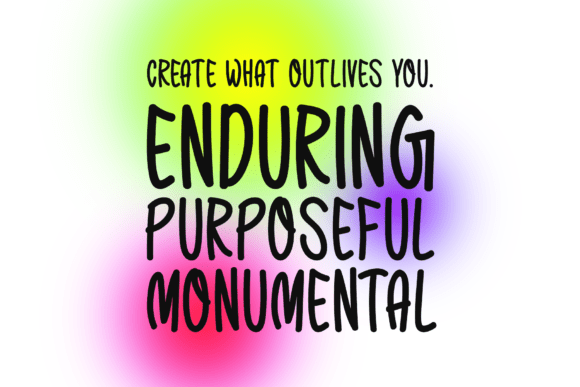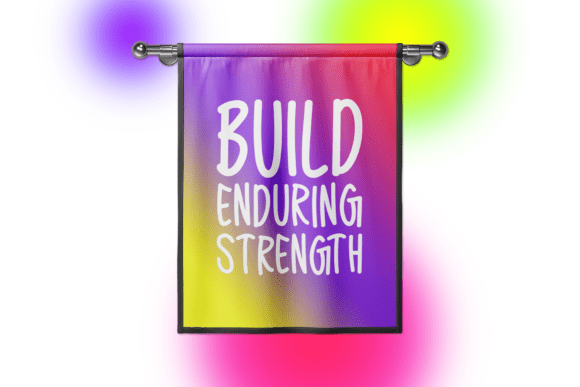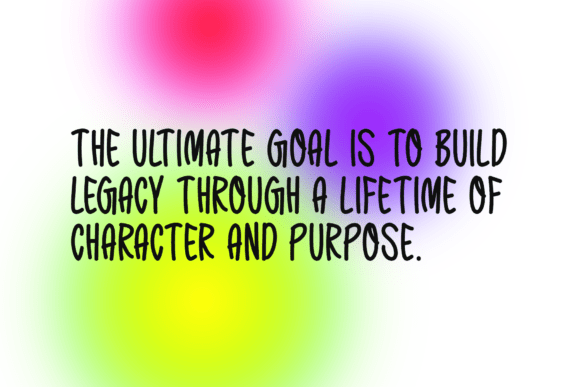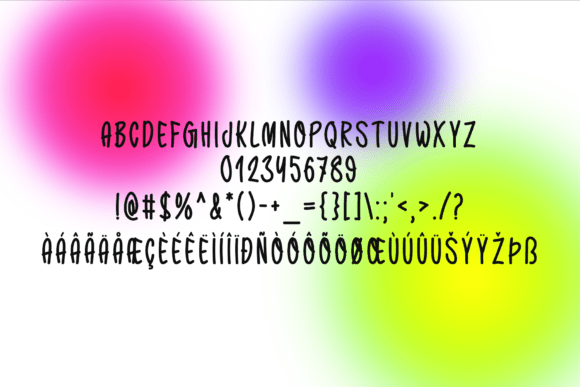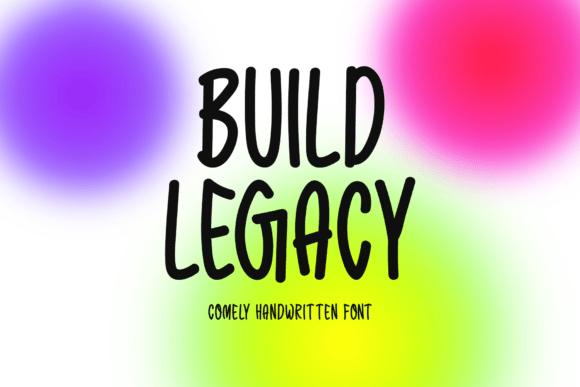
Introducing Build Legacy Font: The Ultimate Sans-Serif Display Font for Modern Designers
In the world of typography, a good font can make all the difference in creating stunning visual designs. For designers and crafters looking for a modern, sleek, and versatile font, Build Legacy font is an excellent choice. This condensed sans-serif display font is perfect for headlines, posters, logos, and branding where a bold yet compact look is needed.
What Makes Build Legacy Font Stand Out?
Build Legacy font features tall, narrow letterforms with consistent stroke widths, giving it a unique and stylish appearance. The clean sans-serif style makes it highly versatile and suitable for various design projects. Whether you’re working on a logo, poster, or branding material, this font is sure to make a statement.
One of the key benefits of Build Legacy font is its ability to convey a sense of modernity and sophistication. The font’s sleek design and consistent stroke widths give it a professional look that’s perfect for businesses and individuals looking to create a strong visual identity.
Key Features of Build Legacy Font
- Condensed sans-serif display font: Build Legacy font is designed to make a statement with its tall, narrow letterforms and clean sans-serif style.
- Modern, sleek, and slightly retro vibe: The font’s unique design gives it a stylish and sophisticated appearance that’s perfect for modern designs.
- Versatile for various design projects: Build Legacy font is suitable for headlines, posters, logos, and branding where a bold yet compact look is needed.
- Includes numbers, punctuation, and multilingual characters: The font’s extensive character set makes it perfect for professional and creative design projects.
The Benefits of Using Build Legacy Font
Build Legacy font offers several benefits for designers and crafters. Its clean sans-serif style and consistent stroke widths make it easy to read and visually appealing. The font’s versatility also makes it suitable for various design projects, from logos and posters to branding and packaging.
How to Use Build Legacy Font in Your Design Projects
Using Build Legacy font in your design projects is straightforward. Here are a few tips to get you started:
- Headlines and titles: Use Build Legacy font to create bold and eye-catching headlines and titles that grab attention.
- Logos and branding: The font’s clean sans-serif style and modern vibe make it perfect for logos and branding materials.
- Posters and flyers: Build Legacy font is ideal for posters and flyers, where a bold and compact look is needed.
- Packaging and labels: The font’s versatility also makes it suitable for packaging and labels, where a clear and concise message is essential.
Build Legacy font is an excellent choice for designers and crafters looking for a modern, sleek, and versatile sans-serif display font. Its unique design, extensive character set, and PUA encoding make it perfect for various design projects, from logos and posters to branding and packaging. With Build Legacy font, you can create stunning visual designs that make a statement and leave a lasting impression.